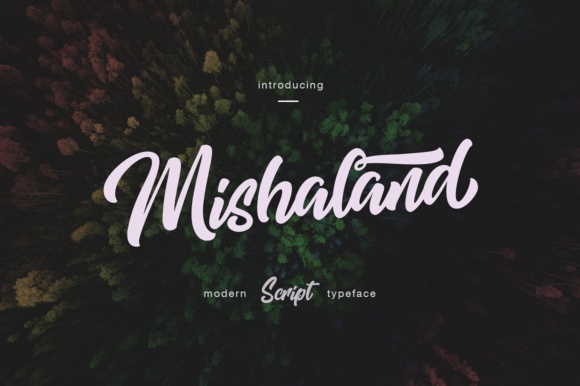
Mishaland Font
Unleash the allure of Mishaland Font, a modern script typeface that will leave an unforgettable impression on your designs. Its bold, striking letters exude a captivating aura, ensuring your messages shine with a touch of elegance and intrigue.
With Mishaland Font, you'll unveil a world of design possibilities. Whether you're crafting logos, invitations, social media graphics, or any other visual creation, Mishaland Font will effortlessly elevate your work and make it stand out from the crowd.
Immerse yourself in the boundless elegance of Mishaland Font, a font crafted with meticulous care to capture the essence of modern calligraphy. Its graceful strokes and meticulously designed curves evoke a sense of sophistication, making it an ideal choice for projects that demand a classic, timeless aesthetic.
Let your words dance with exquisite beauty as you employ Mishaland Font. Its captivating form lends an air of playfulness and charm, ensuring your designs exude a personality that resonates with your audience.
Step into a world of boundless creativity with Mishaland Font. Its versatility knows no bounds, effortlessly adapting to a myriad of design styles and themes. From vintage-inspired aesthetics to contemporary designs, Mishaland Font blends seamlessly, allowing you to explore limitless creative possibilities.
Unlock the full potential of Mishaland Font and watch your designs transform into masterpieces of visual artistry. Its captivating nature will weave a spell of enchantment over your creations, leaving an indelible mark on your audience's minds.